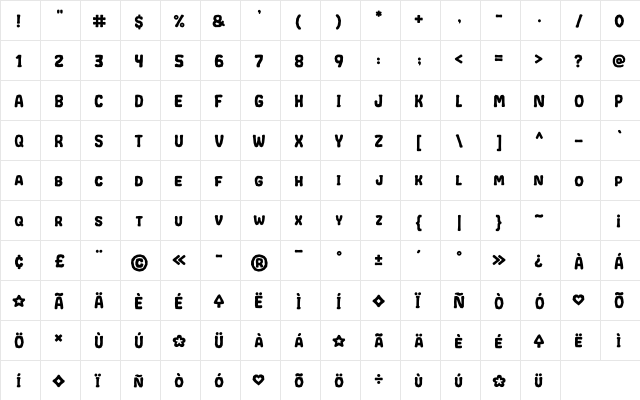
CRUMPLED Regular
Design Context for CRUMPLED Typeface
CRUMPLED offers clean, dependable letterforms without strong stylistic allegiance, making it a practical choice for designers who need flexibility.
Pro Tip: Use CRUMPLED in both headline and body roles to test its range before committing to a single application.